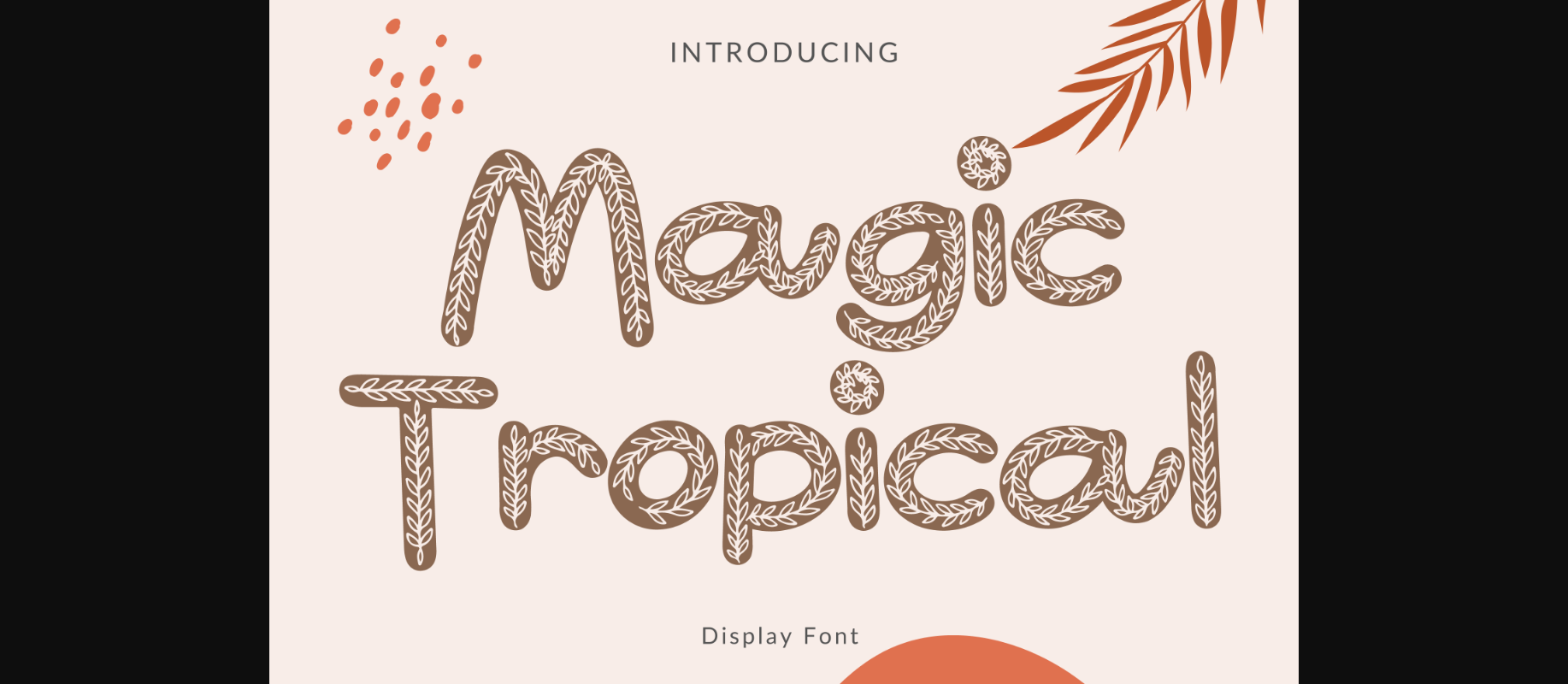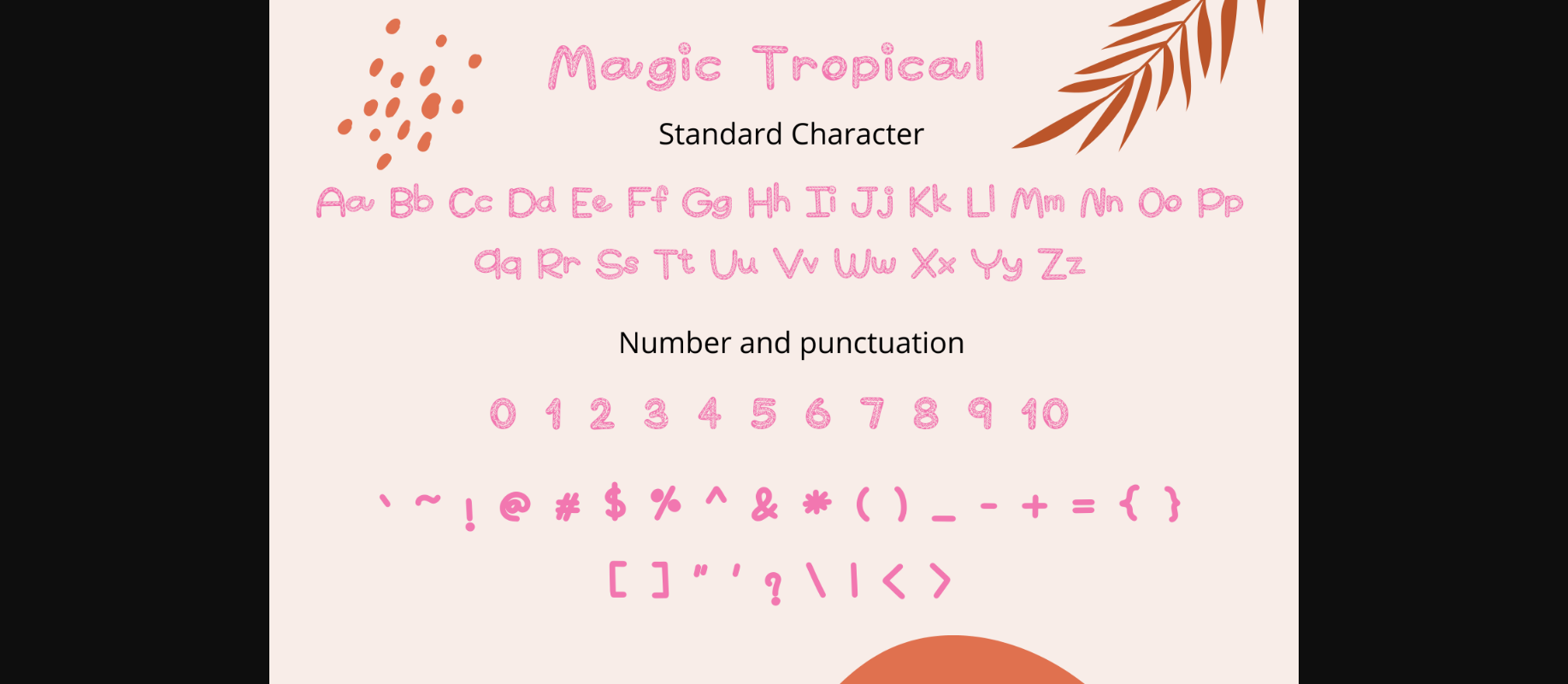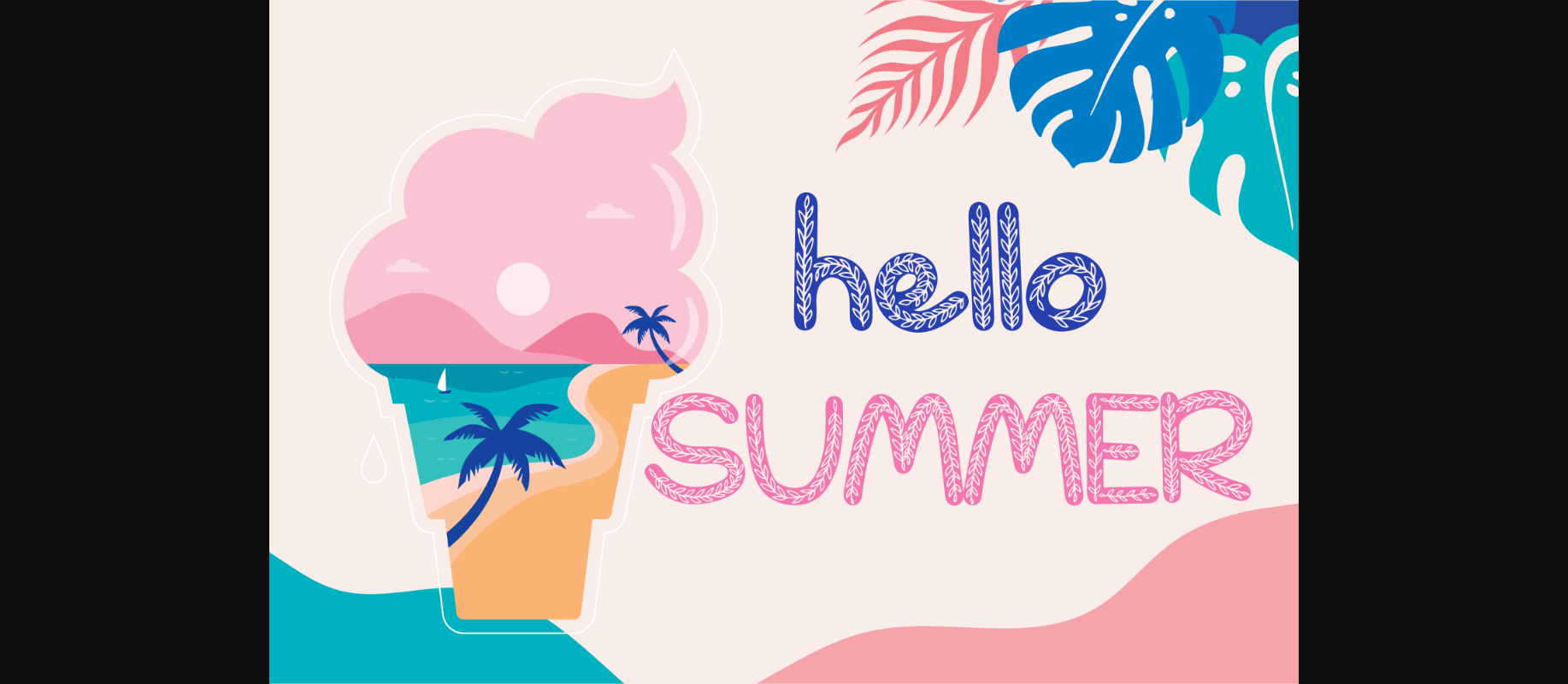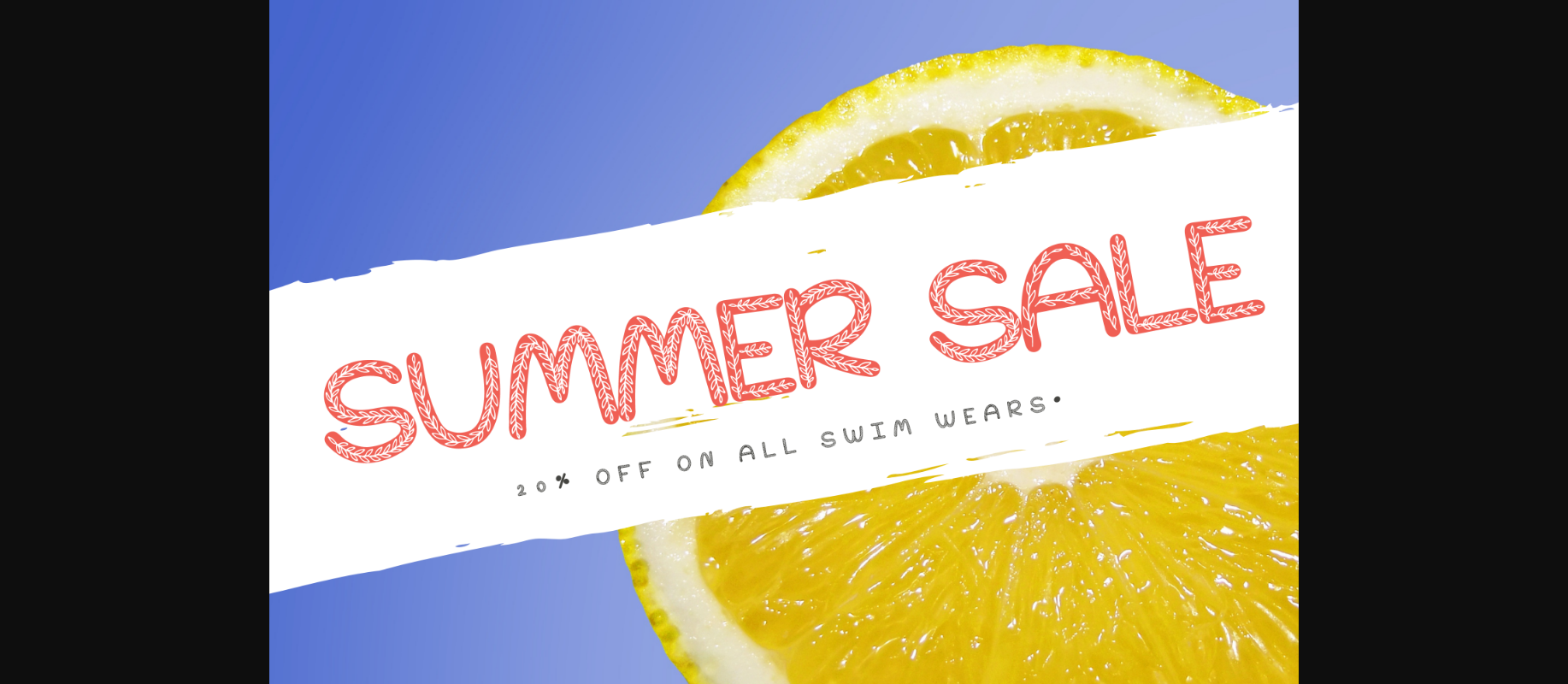
About Magic Tropical Font
Magic Tropical Style is a whimsical and stylish decorative handwritten font. It can easily be matched to an incredibly large set of projects, so add it to your creative ideas and notice how it makes them stand out!